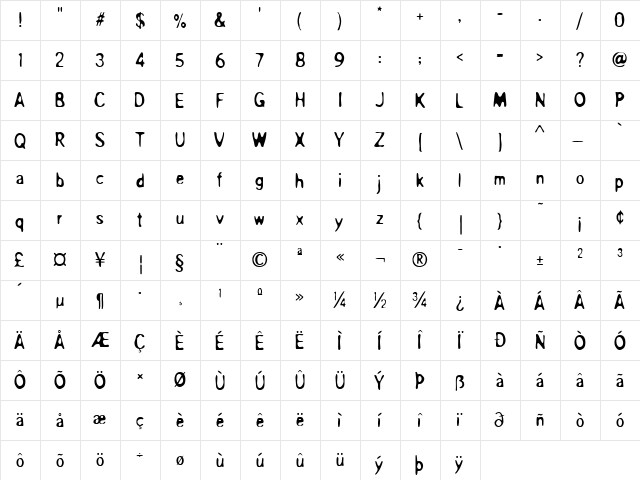
OverprintICG Regular
Design Context for OverprintICG Typeface
OverprintICG is a composed and adaptable typeface that performs quietly and consistently across a wide range of design contexts.